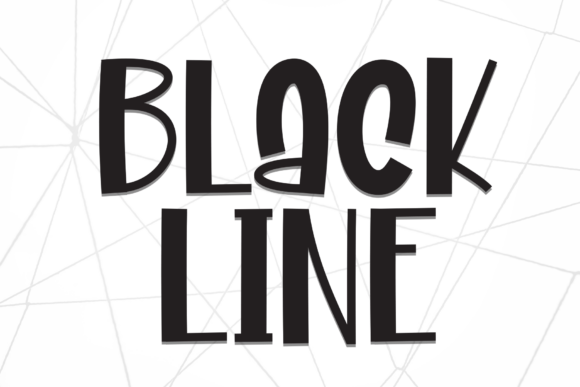
The Perfect Font for a Bold Statement
Remember the moment when you finally found the perfect font to match your creative vision? It’s like striking gold – your design instantly comes alive, and you know you’ve made the right choice. For designers, discovering a font that perfectly captures the essence of their project is a thrill like no other.
Meet Black Line Font, a bold, display font that’s as fun as it is impactful. This versatile typeface is designed to make a statement, with its thick, solid shapes and playful variation in stroke width and letter placement. Whether you’re creating a children’s book, casual branding, or signage, Black Line Font brings a strong, confident presence to your design without sacrificing approachability and charm.
As a designer, having a font like Black Line Font in your arsenal can be a game-changer. It’s the perfect tool to help you convey your message and connect with your audience in a more engaging way.
Key Features of Black Line Font
- Font Family: Black Line Font is a unique, hand-drawn font that is part of the Black Line family, which includes multiple styles and weights.
- Character Set: Supports a wide range of languages, including Latin, Cyrillic, and Greek alphabets, making it a versatile choice for international applications.
- Resolution: Designed to be scalable, Black Line Font looks great at resolutions up to 300 DPI (dots per inch), making it suitable for print and digital applications.
- Unique Characteristics: The font’s distinctive, hand-drawn style and subtle imperfections give it a unique, human touch that sets it apart from more formal fonts.
Designer Review: Black Line Font
Overall, I’d say that Black Line Font has some solid features, but it’s not without its limitations. Let’s dive into the good stuff first!
What works well: ✨ Black Line Font is super versatile and can be used for a variety of projects, from modern logos to traditional print materials. Its bold lines and simple design make it a great choice for creating eye-catching headings. ✨ The font also has a high level of scalability, meaning it looks great whether you’re using it on a business card or a billboard.
Some potential limitations to consider: ⚠️ The font can feel a bit cold and sterile at times, which might make it less suitable for projects that require a more emotive or playful tone. Additionally, the lack of contextual alternates (CA) and stylistic sets (SS) might limit your design options in certain situations.
Here are some specific pros and cons to consider:
- Pros: ✨ High scalability, versatile design, great for bold headings
- Cons: ⚠️ Can feel cold and sterile, limited design options due to lack of CA and SS
Overall, Black Line Font is a solid choice for designers who need a reliable, high-contrast font for their projects. While it may not be the most exciting option, it’s definitely worth considering.
Tips for Getting the Most Out of Black Line Font
Use the Black Line Font to create a modern and sleek design. It pairs well with bold and bright colors. Experiment with different font sizes and styles to achieve the desired effect.
The Black Line Font is commonly used for:
- Infographics and data visualizations
Yes, Black Line Font is specifically designed for digital use and is optimized for screens. It is built with a high x-height to improve readability on low-resolution displays and is designed to render well on a wide range of devices and platforms.